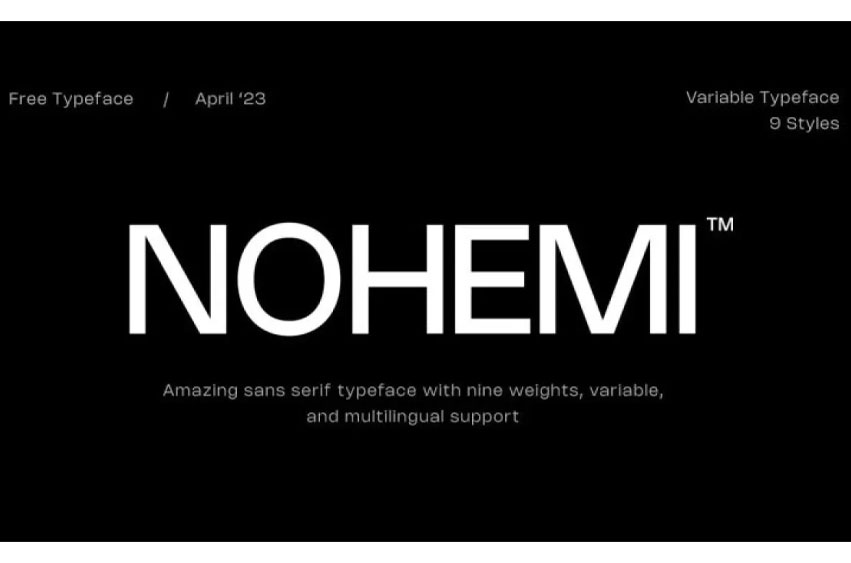
Nohemi Font is a sans serif font family comprising of nine weights and can be applied for brands, advertised, publications, and products designing. Thanks to minimalistic and quite universal design NOHEMI can be used as a brand identity, website or product design and even as a poster. One can use NOHEMI for ventures or businesses. You can download it for free or you can donate any amount you wish for the development of this tool!
NOHEMI has been recognized as one of the most versatile typefaces that are easy to modify, and use. Besides, it is characterized by smooth curves, and its modern design makes it fit for both print and electronic media.